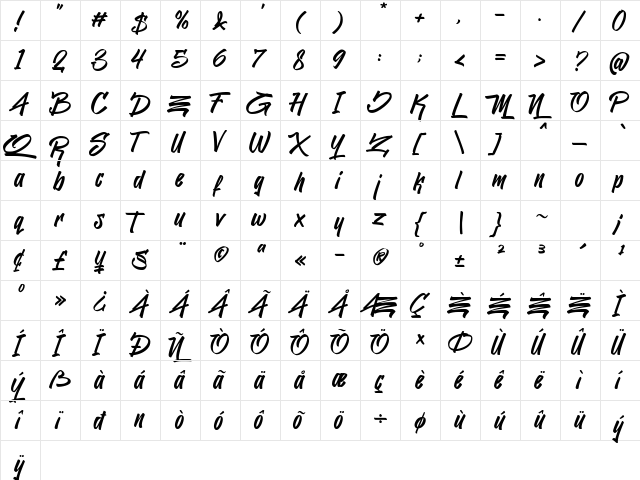
Jacksilver Regular
Design Context for Jacksilver Typeface
Jacksilver is a composed and adaptable typeface that performs quietly and consistently across a wide range of design contexts.